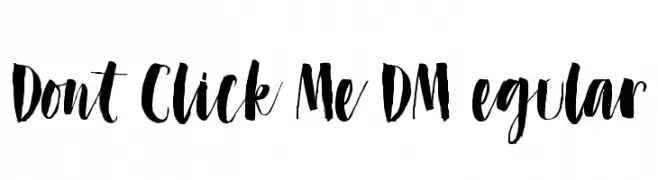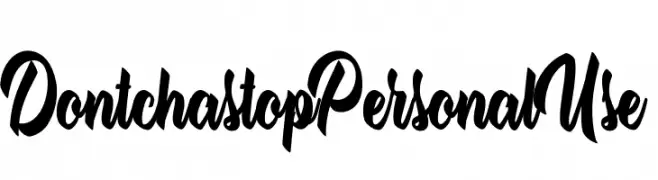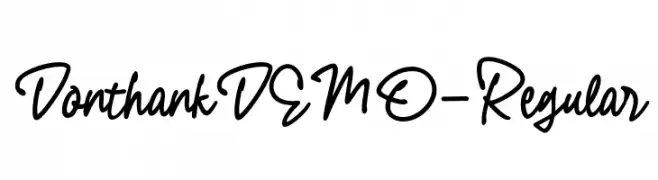
A condensed, hand-drawn font with tall, narrow characters and a rustic feel.
A bold, distressed font with a rugged, weathered appearance.
A bold, flowing script font with dynamic curves and high contrast.
A lively and expressive handwritten font with fluid strokes.
A modern, elegant handwritten script with fluid, graceful strokes.
A bold, playful handwritten font with thick strokes and quirky shapes.
A bold, playful handwritten font with thick strokes and rounded edges.